There was many movement in space of design and variable fonts are here to shake things up and supplement creatives. Because these fonts can extend several styles within a single file, they provide new experiences to a graphic designers in their workflow and make their techniques much more exciting and efficient.
Today we have gathered more as 20 catchy variable fonts for your investigation. All these creatives made by professional designers and is in a perfect quality no matter it is free or premium font. Keep it and enjoy!
Free Migha Variable Font
This font comes with a full set of uppercase, numbers, punctuation and multilingual support. With 6 weights, 4 width, contrast and slant for a total of 96 font files. Variable font includes. Perfect for branding, magazine, posters, logos, titles and etc.
Free Soulcraft Font
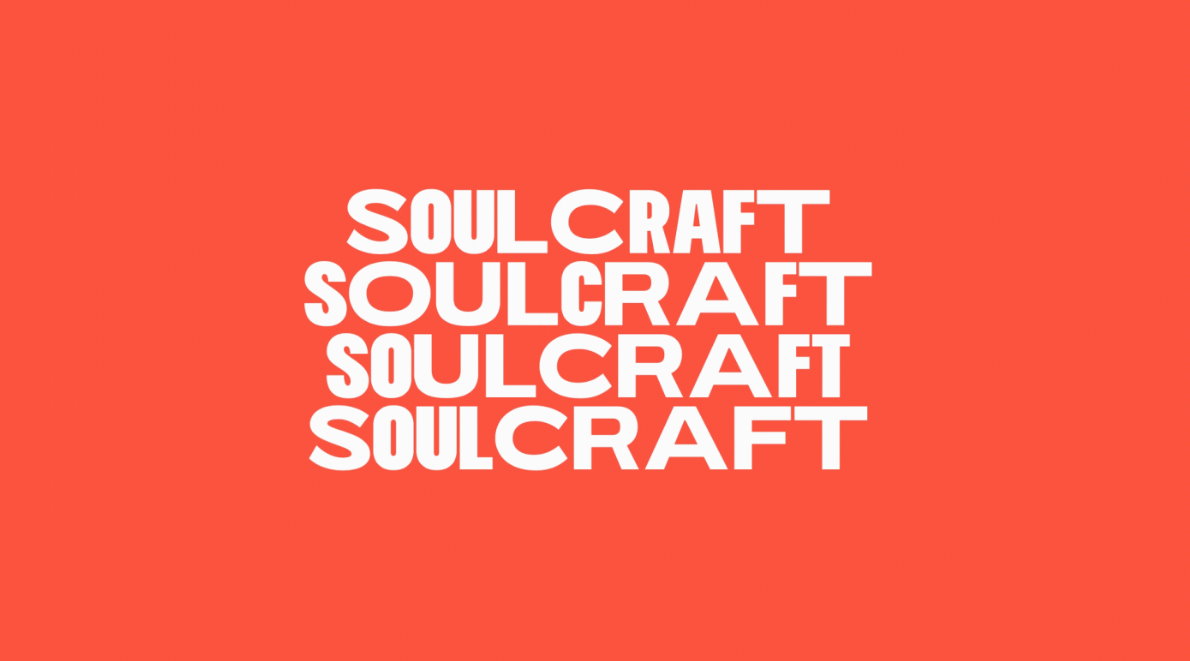
It is an open type variable font designed with the idea of emulating vernacular lettering. Ideal for branding, logos, tittles, covers, posters and etc.
Free Monica Variable Typeface
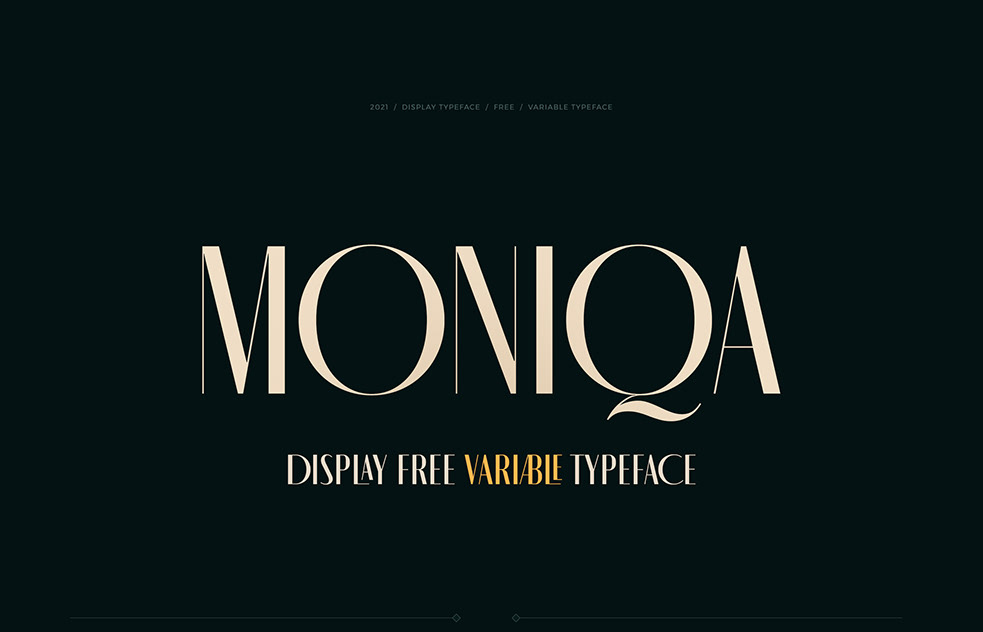
It is variable sans serif font family. It’s a multilingual typeface which has latin and cyrillic scripts, loaded with alternate characters, 162 styles, discretionary ligatures, and lots of open type features.
Nura Variable Font
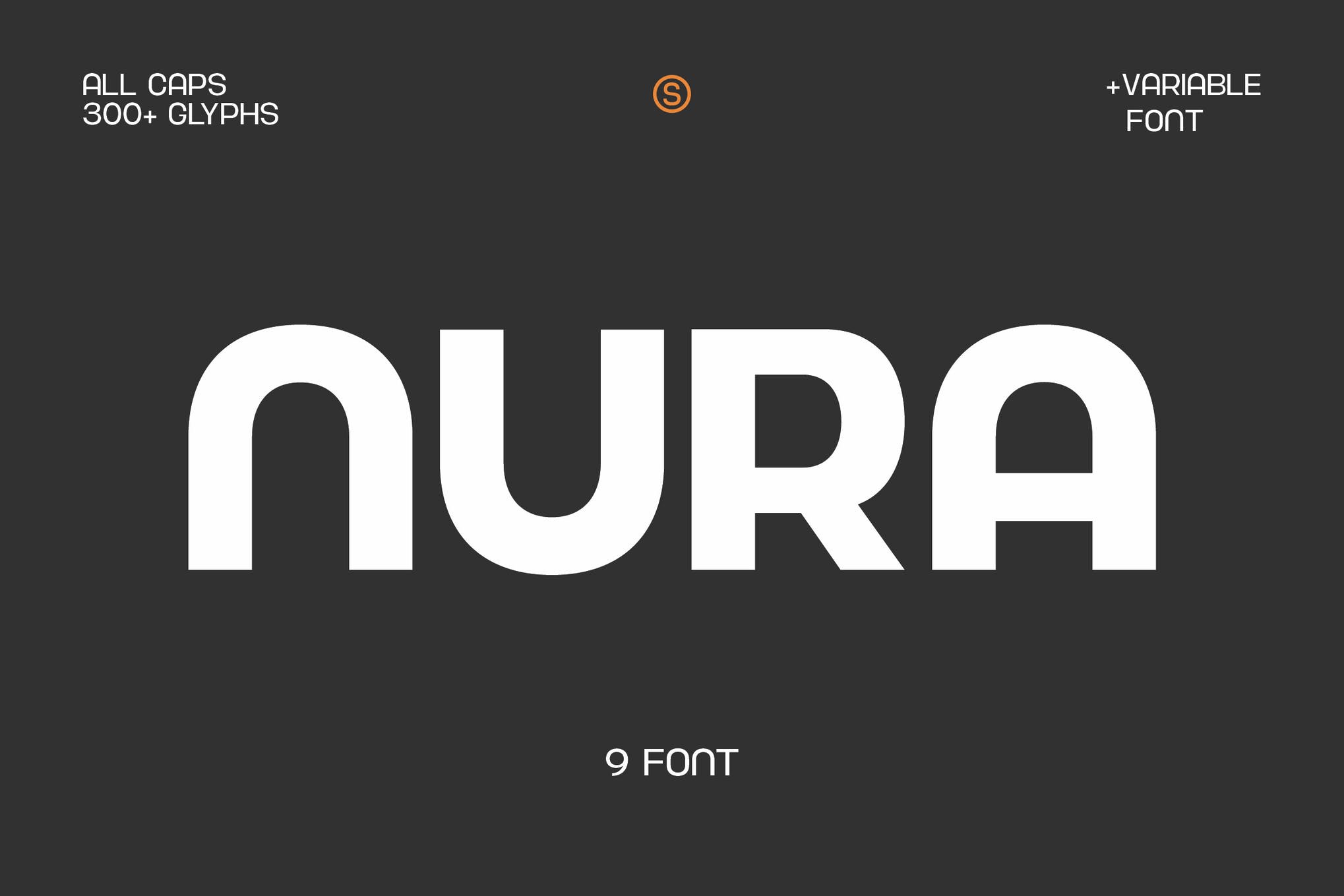
The Nura font family comes in various sizes from thin to black, giving you the freedom to get creative with this font. With strong characters in the size of black, it is very suitable to use for sign displays.
Mionic – Variable Fonts
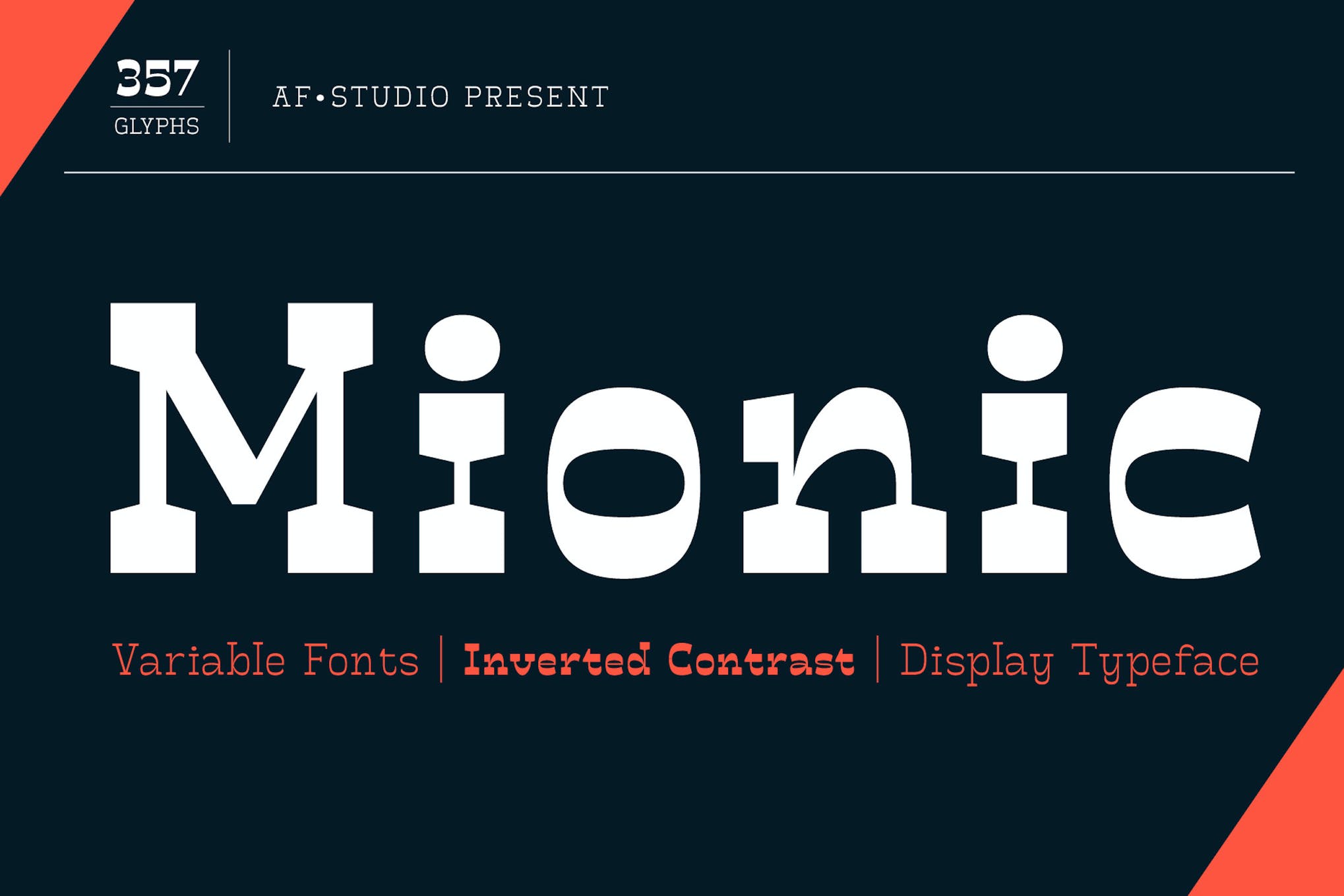
It is an inverted contrast slab serif display typeface. Best to use for a bigger typography such as headlines, posters, Logos, covers, tittles and etc.
Mayes – Variable Font
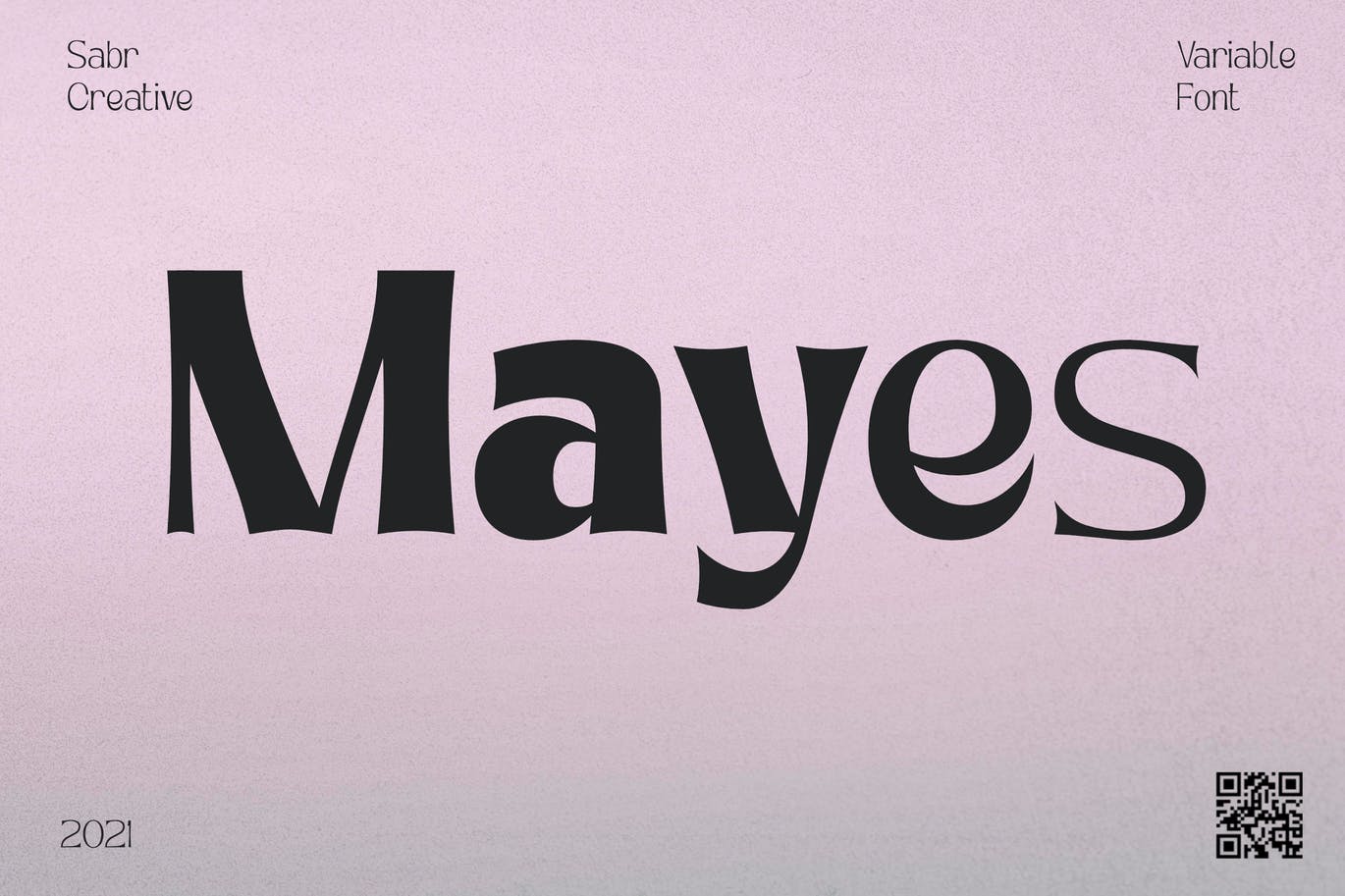
Multipurpose display font with unique characters, ranging in size from regular to black, making you free to design with this font. Ideal for posters, logos, branding identity, covers, tittles, product packaging and etc.
Oliviar Variable Display Fonts
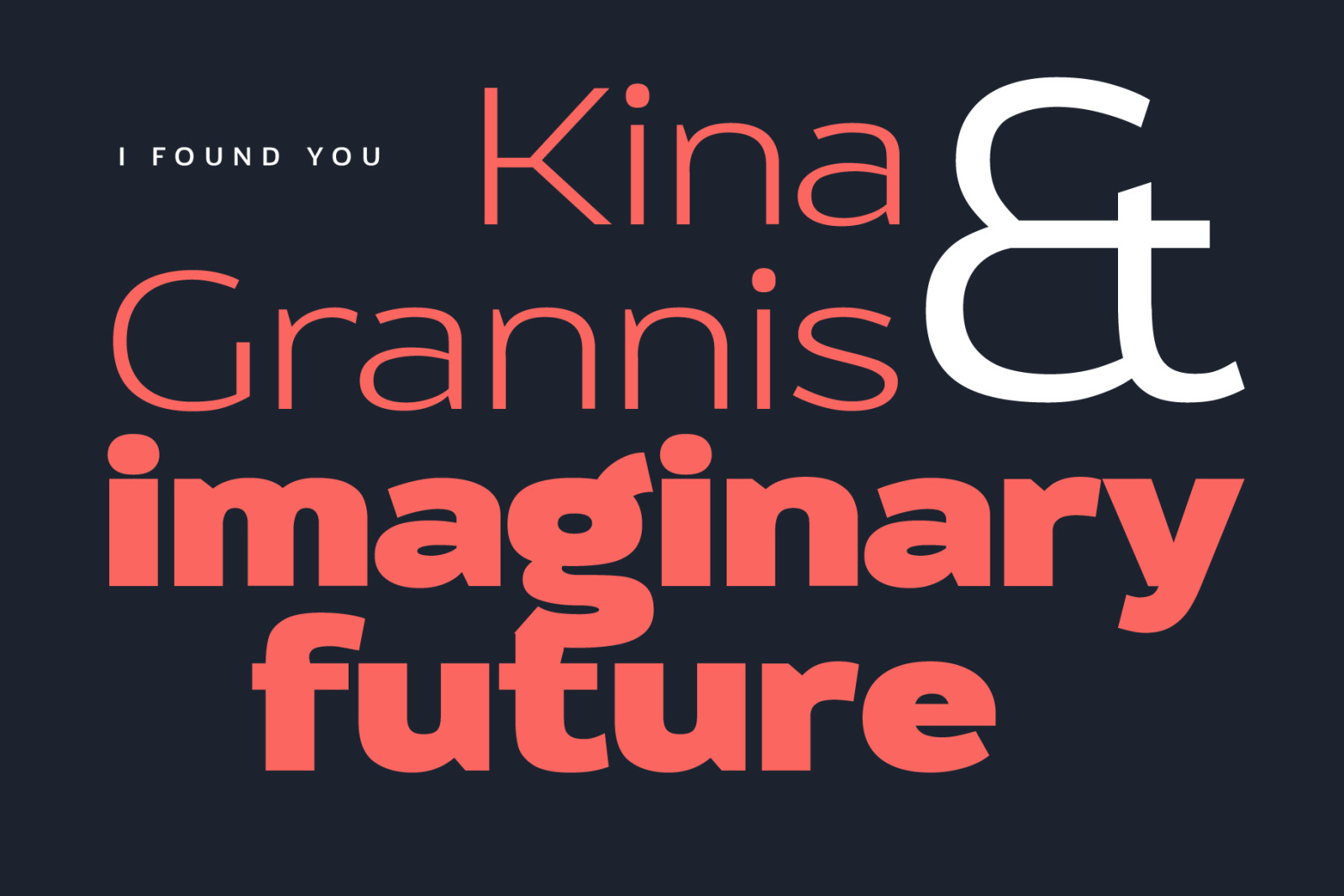
It is a modern sans serif variable font with grotesque touch and 28 styles. Best for lettering, branding, posters, brochures, greeting cards, packaging design and etc.
Jollin Family – Variable Font
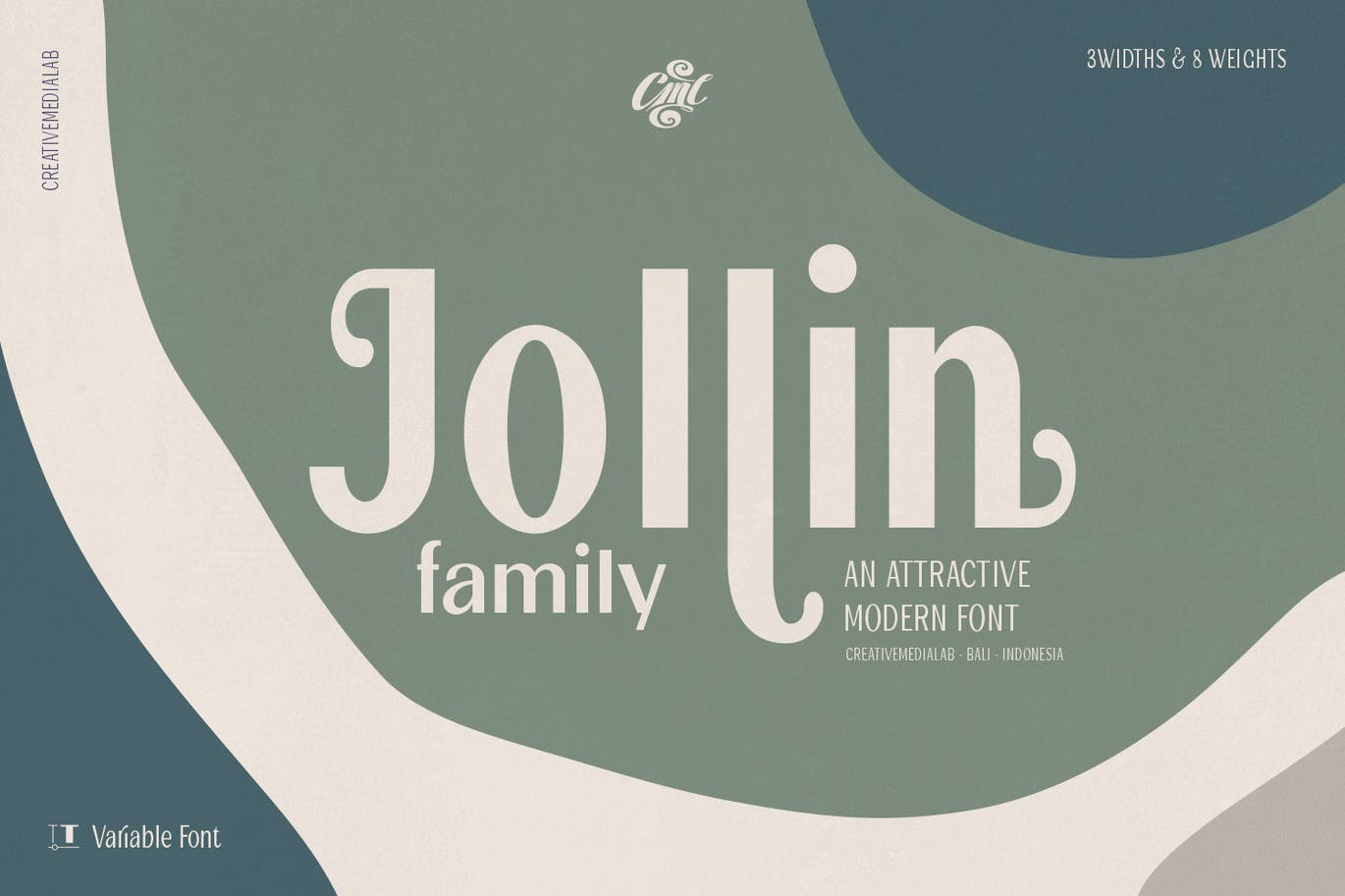
It is a pretty, attractive and fashionable sans serif variable font, has ton of alternates that you can use to create a simple but pretty letters. Perfect for greeting cards, branding, tittles, covers, posters and etc.
Vogie Variable Font
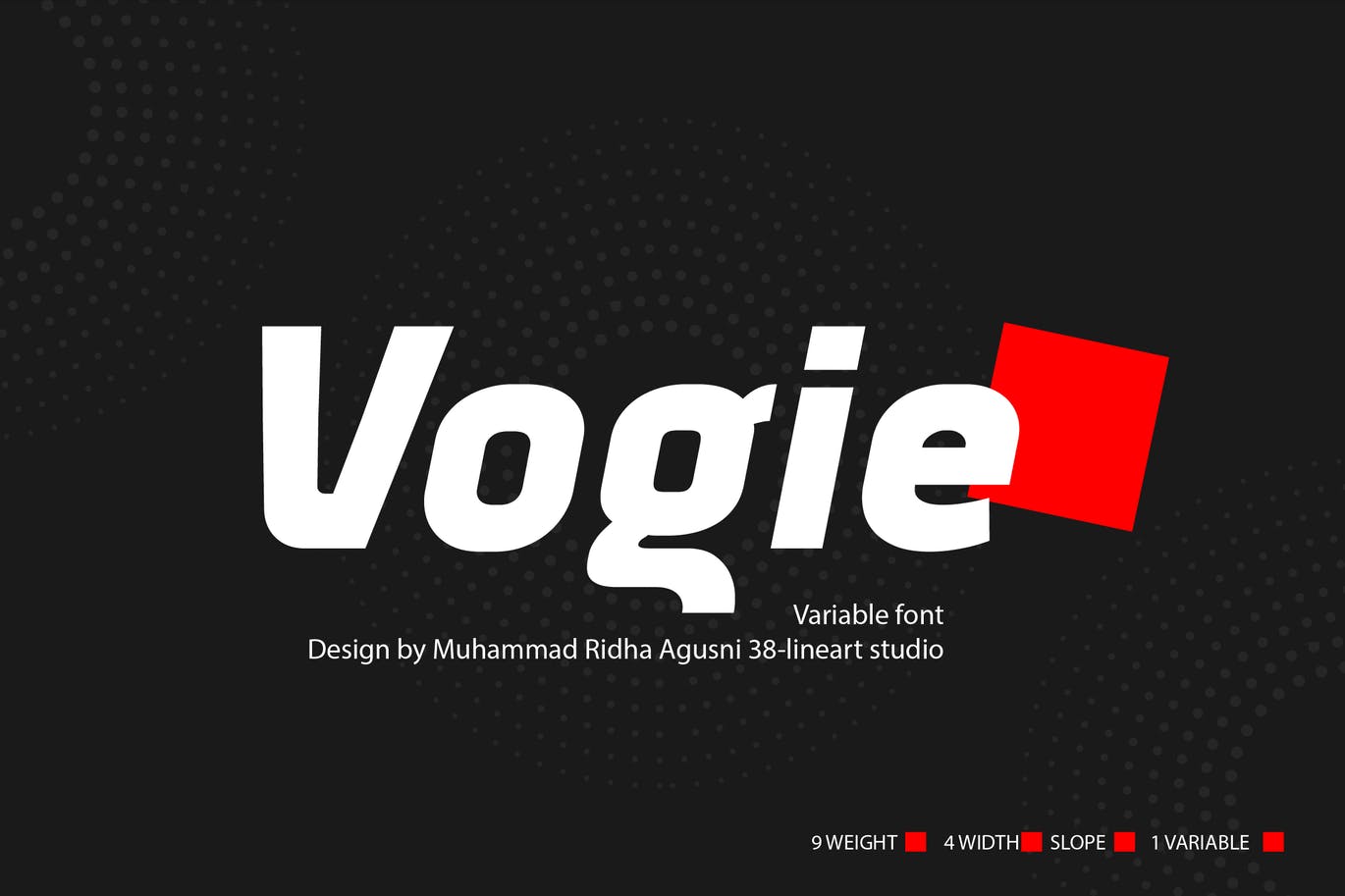
Itis a sporty and modern sans serif font, comes in 4 widths, 9 weights and is available in regular and oblique. 62 fonts encapsulated in one variable font makes this font more modern and easier to use. Perfect for headlines, tittles, posters, flyers and etc.
Boiling Font Family
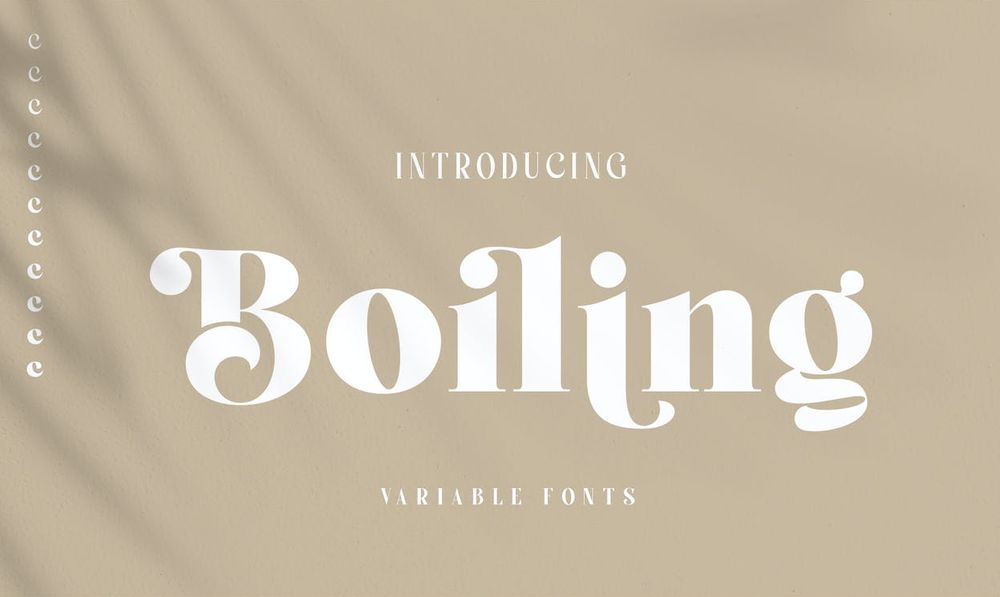
Boiling fonts have 11 families from thin to black all of which can be applied to design concepts that are at work or become your unique serif font collection. Ideal for posters, invitation cards, greeting cards, brochures, covers, tittles and etc.
Skinny Joe – Variable Font
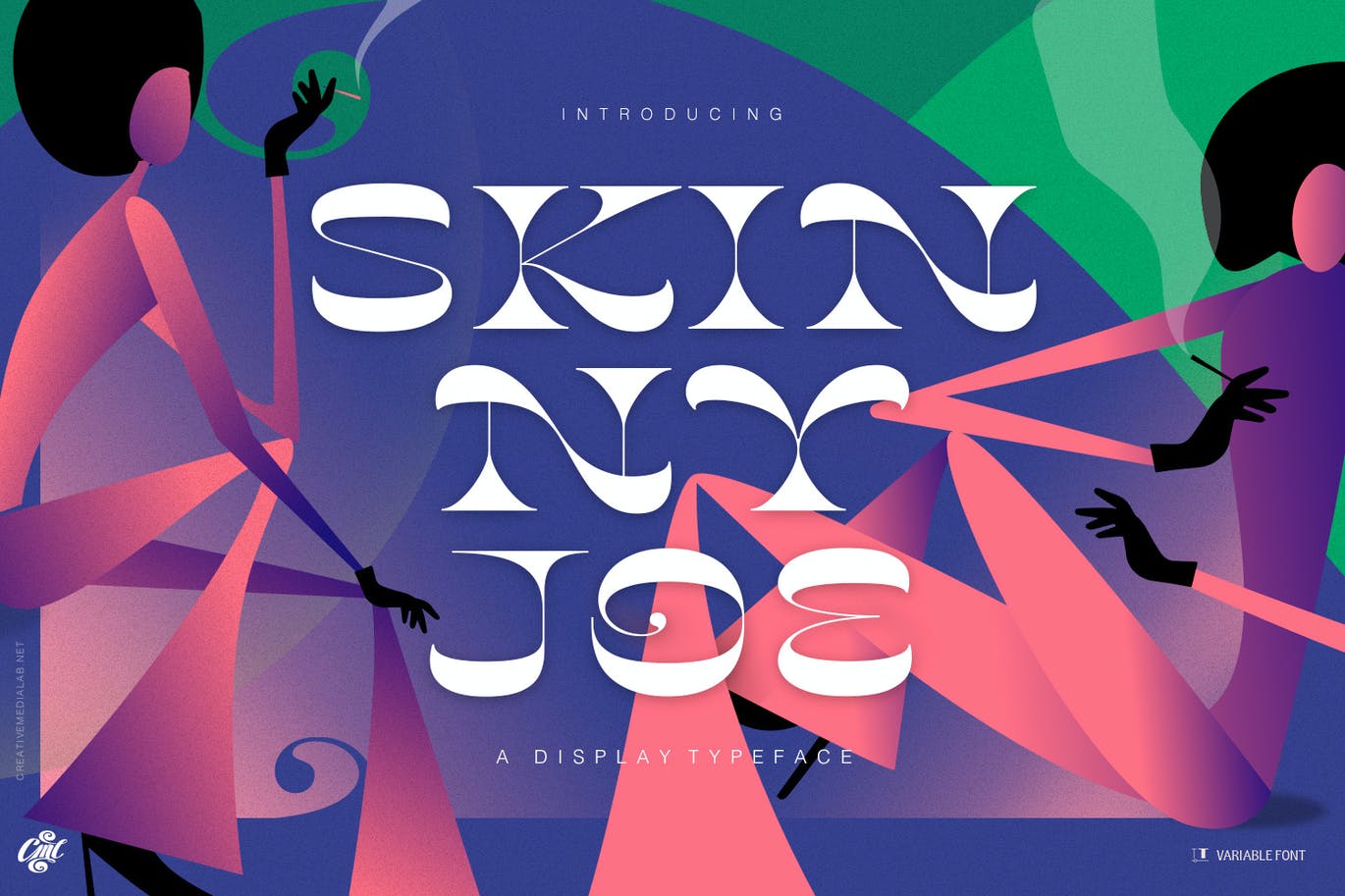
Skinny Joe features a reverse contrast style with a retro and vintage look that’s simply ideal for summer theme concept such as posters, book covers, t-shirts, branding, logos and etc.
Joyride Extended Typeface
It is an extended varible width sans serif typeface. The family includes 16 fonts in a variety of weights and styles. Perfect for tittles, headlines, covers, posters, flyers and etc.
Free Attika – Variable Font
It is a free variable font. Ideal for posters, logos, apparel, covers, books and etc.
Free Yaldevi – Variable Font
It is a narrow variable font supporting latin and sinhala scripts. Perfect for short tittles, covers, posters, flyers and etc.
Free Devanesa – Variable Font
It is a free font family that based on the school of a small village in rural Spain, designed to fight a growing problem: depopulation. Perfect for brochures, greeting cards, posters, flyers, covers and etc.
OKE! Sans Family Variable Fonts
It is a font created to meet the needs of web designers to create an elegant and modern website. This font has a very strong character, with very high contrast and legibility. Perfect for headlines, tittles, brochures, posters, web designs and etc.
Whirly Birdie Variable Font
Whirly Birdie now includes 18 individual styles, or one easy-to-use variable font with weight, width, and italic axes. Best suits for children books, t-shirt designs, covers, posters and etc.
Protrakt Variable Font
It has been designed as a variable font and should be used in as a variable font to get the full enjoyment of using this typeface. Ideal for headlines, book covers, t-shirt designs, logos and etc.
Presto Variable Font
It is a variable weight sans serif typeface made up of 12 fonts from thin and condensed to wide and bold. Ideal for posters, flyers, t-shirt designs, covers and etc.
Urban Tour Variable Sans Deco Font
The main concept is a geometric sans serif typeface with a few narrow constructed characters to spice up the flow of the text written with this font. Ideal for posters, headlines, tittles, covers, packaging and etc.